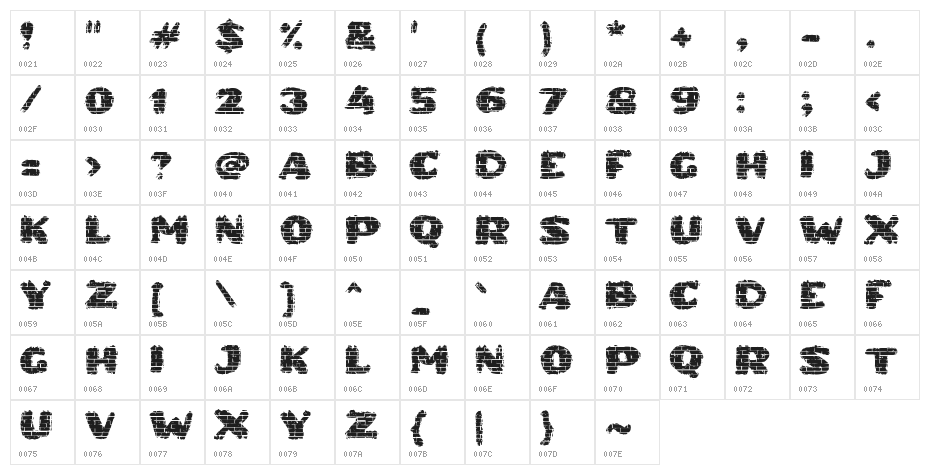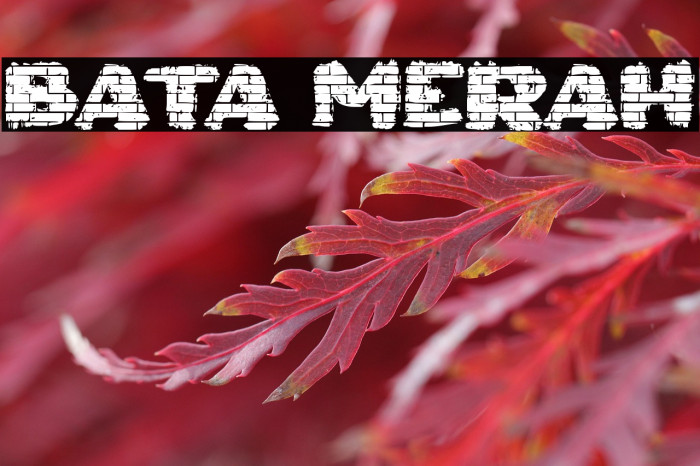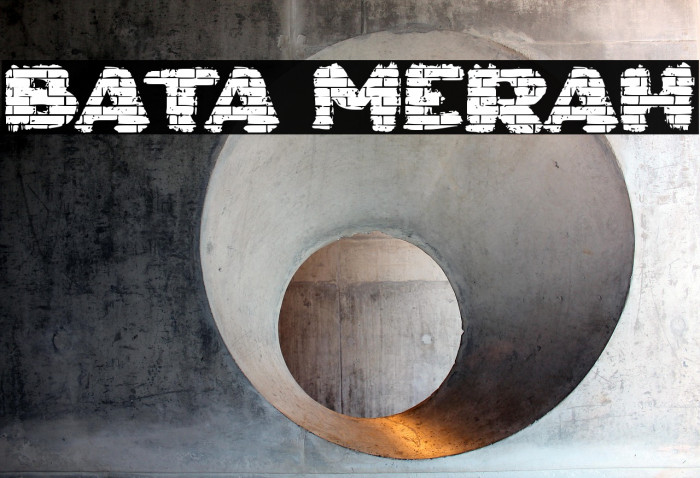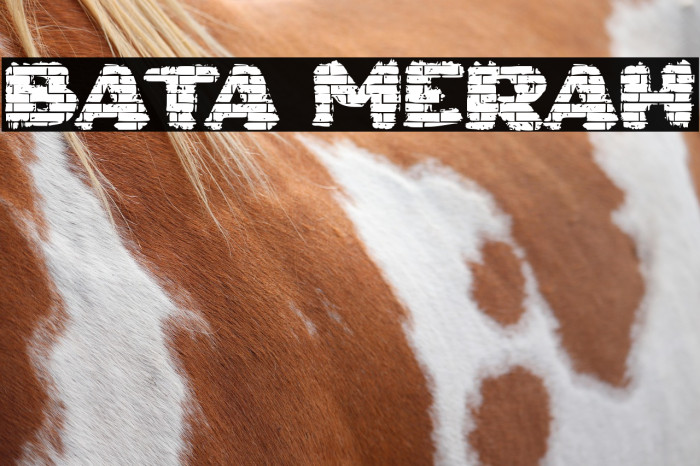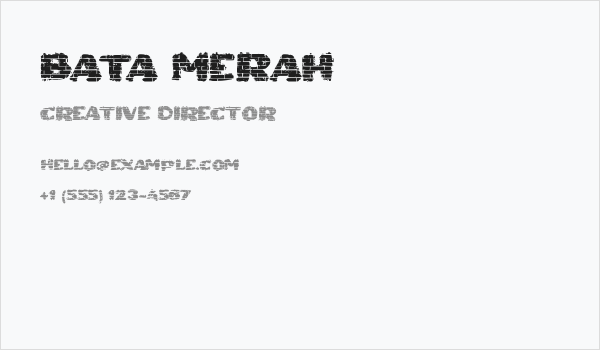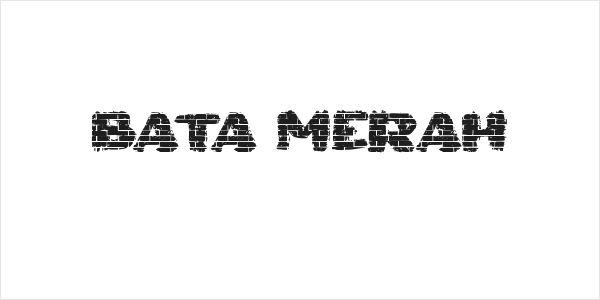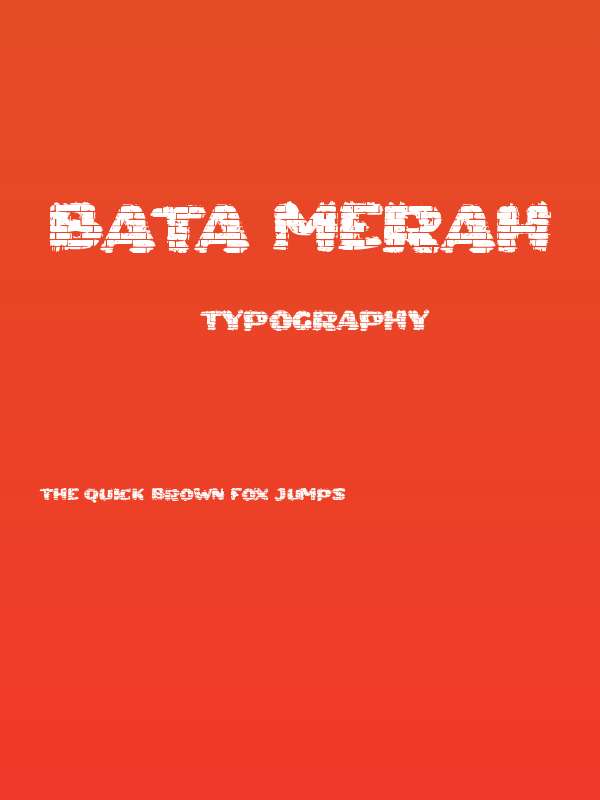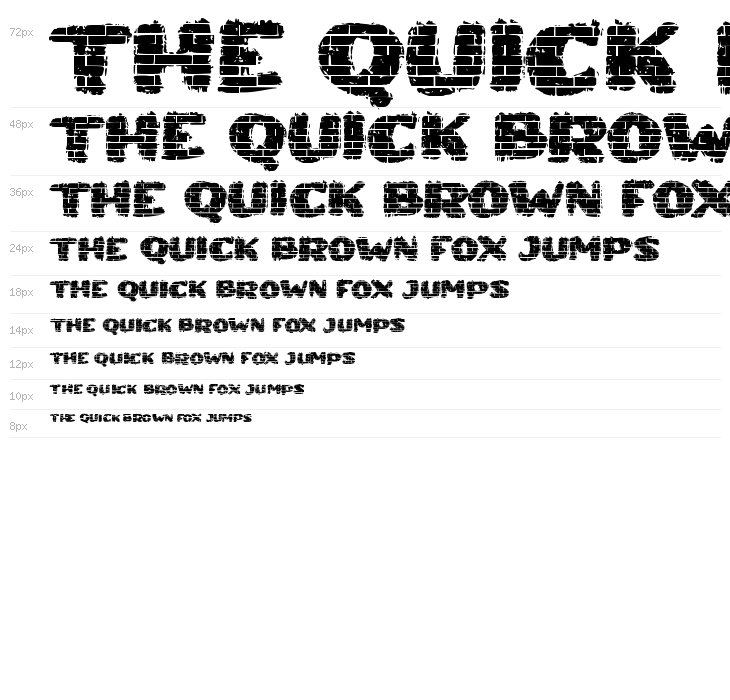
Bata Merah Font
Bata Merah Description
This font features a bold, distressed style with a textured, grunge appearance. The characters are blocky and robust, with a rough, uneven surface that gives them a worn, vintage look. Each letter and number appears as if it has been weathered or eroded, adding a unique, artistic flair. The uppercase and lowercase letters maintain a consistent thickness, while the numbers and special characters follow the same distressed pattern. This font's rugged design makes it stand out, ideal for projects that require a bold, eye-catching statement.
| Proposed Projects | Perfect for posters, album covers, branding for edgy or alternative products, and any design needing a vintage or rugged aesthetic. |